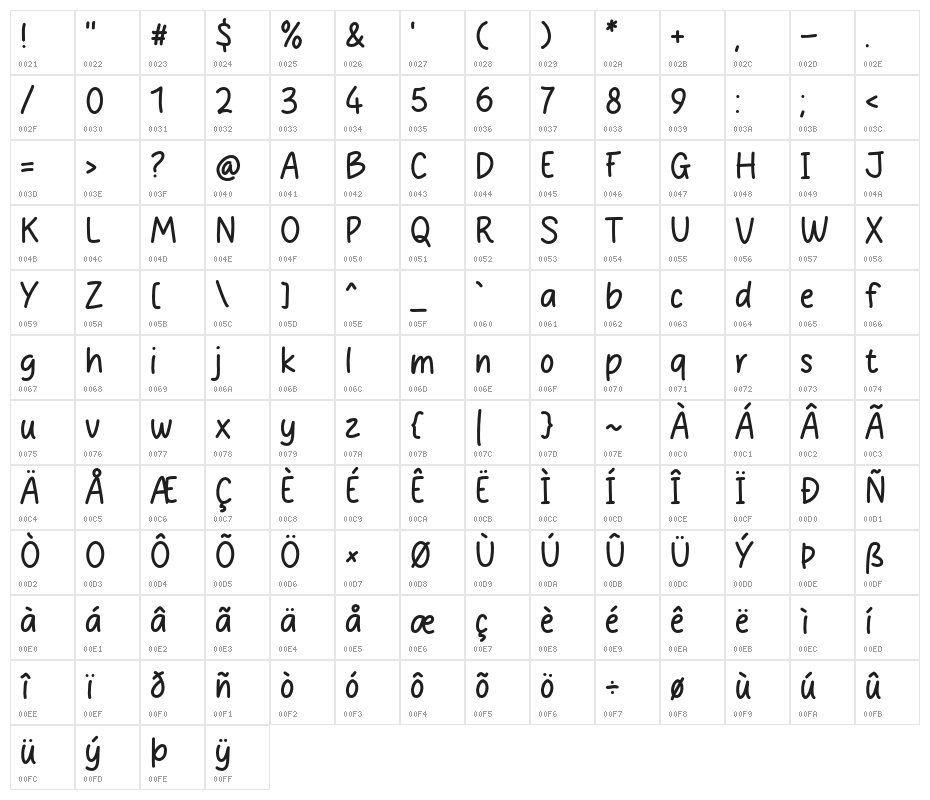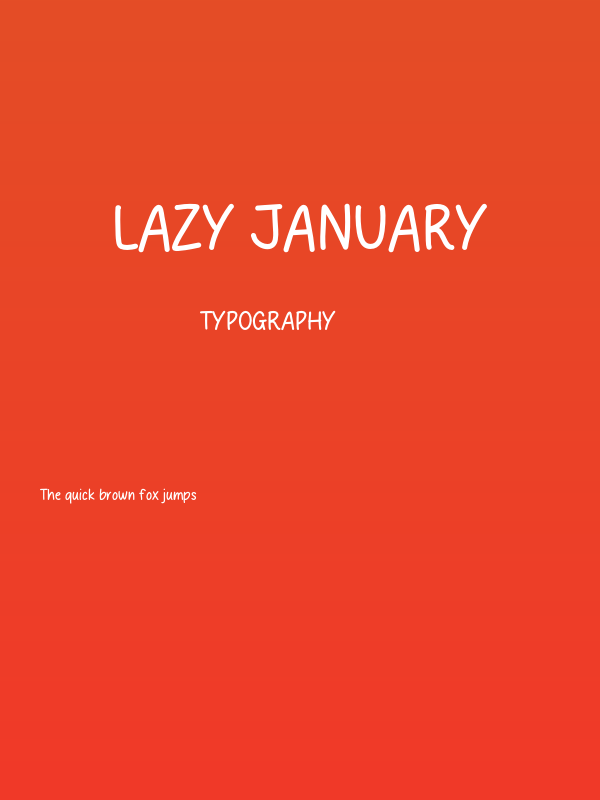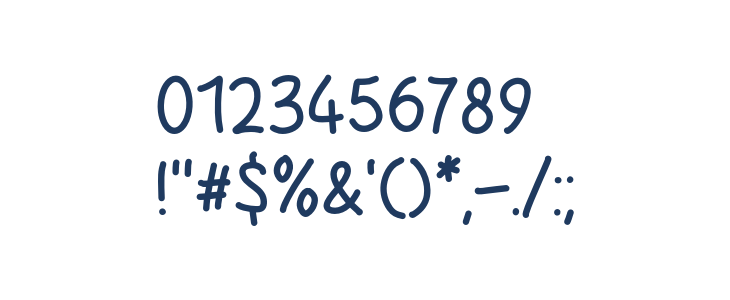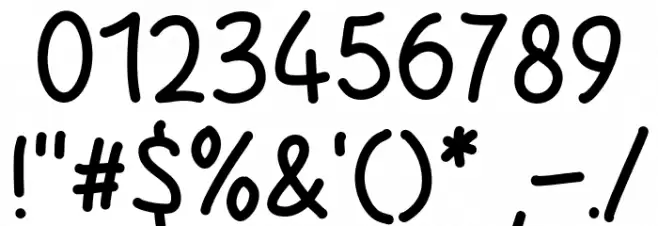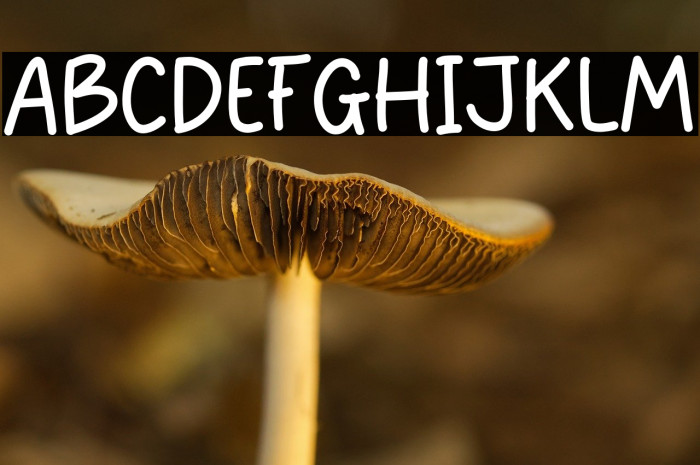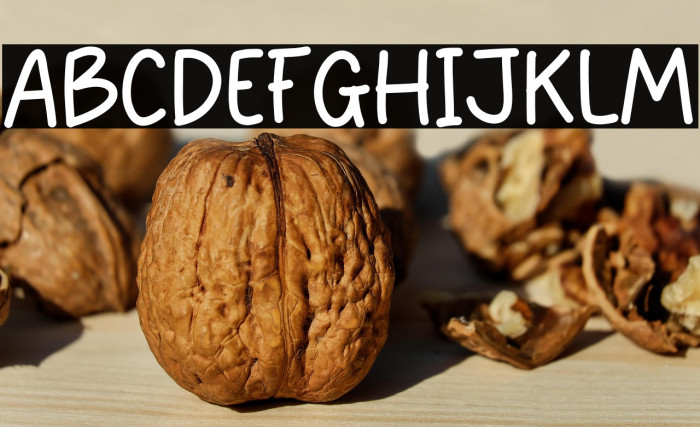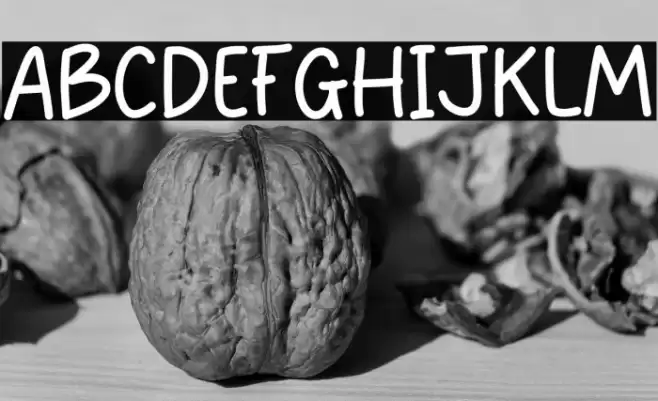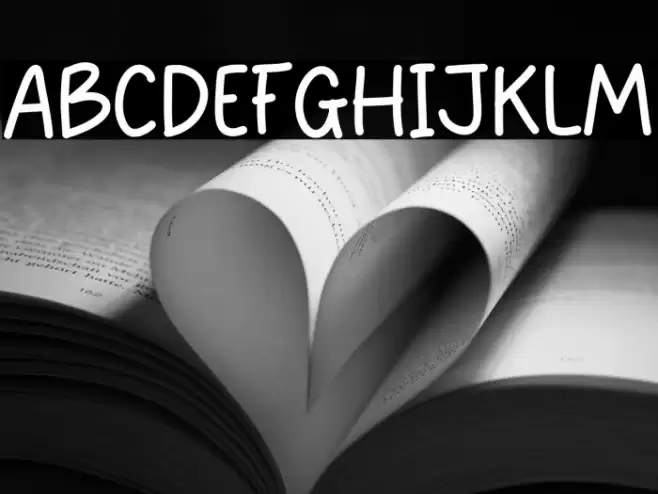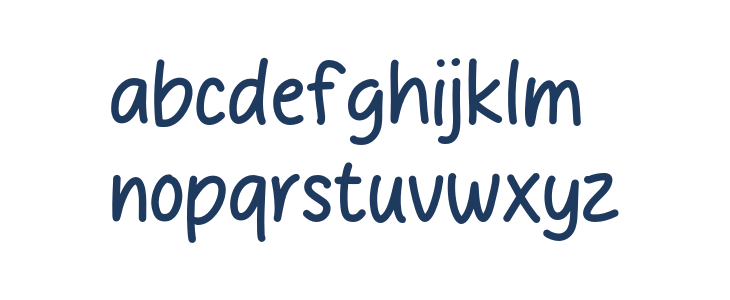
Lazy January Font
Lazy January Description
This font features a playful and casual handwritten style, characterized by its rounded and slightly irregular letterforms. The strokes are consistent in thickness, giving it a uniform appearance while maintaining a friendly and approachable feel. The characters are well-spaced, ensuring readability, and the overall design conveys a sense of informality and warmth. The numerals and special characters follow the same style, making it versatile for various uses. Its simplicity and charm make it suitable for projects that require a personal touch.
| Use Case | Headlines, Informal text, Branding |
| Proposed Projects | Ideal for greeting cards, children's books, casual branding, and social media graphics. |